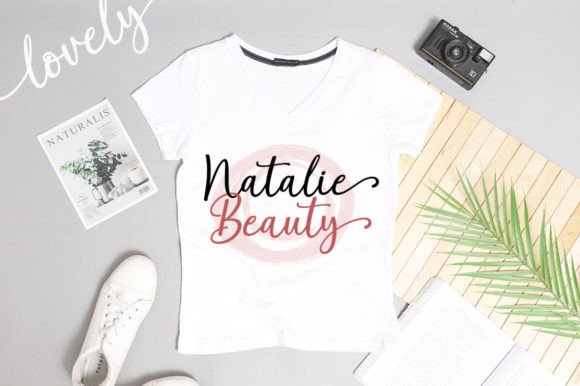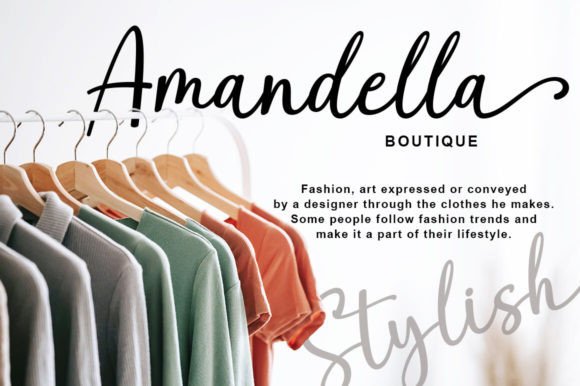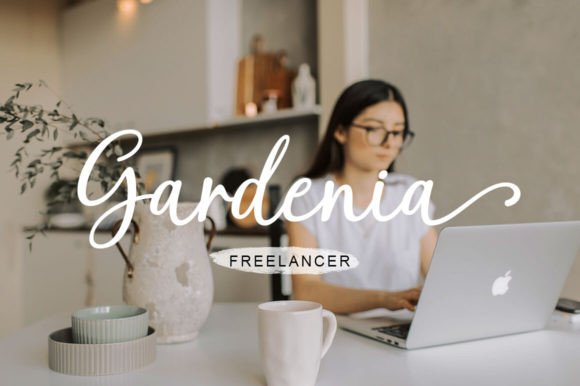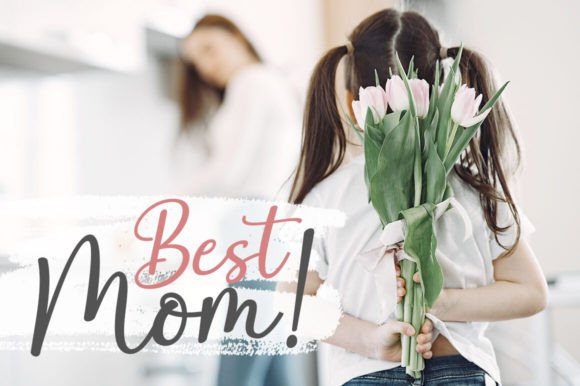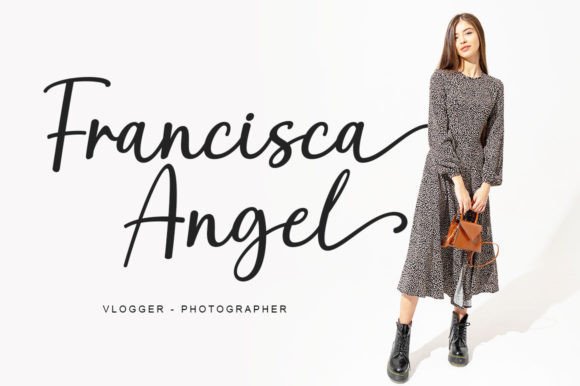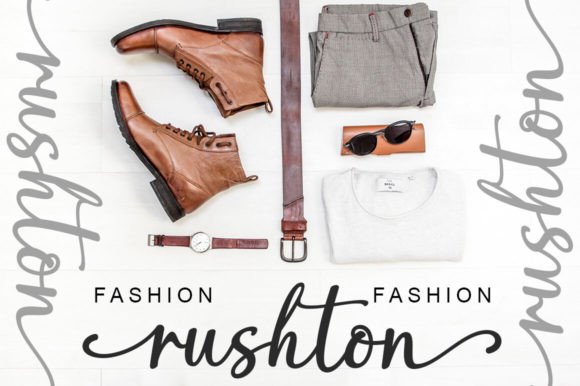
Introduction to Money Font
Have you ever been in the midst of a creative project, pouring your heart and soul into every detail, only to find the perfect design element is just out of reach? That’s exactly what happened to me when I stumbled upon the Money Font, a stunning modern script font that has since become my go-to design resource.
As a designer, I can attest to the value of having access to high-quality fonts like the Money Font, which boasts an irregular baseline and a trendy, feminine style. Whether I’m working on a wedding invitation, a thank you card, or a logo, this font’s versatility and beauty make it a must-have in my design arsenal.
With its PUA encoding and extensive support for initial and final letters, alternative scripts, and multiple languages, the Money Font is a valuable addition to any designer’s toolkit. And the best part? It’s perfect for use with transparent backgrounds, making it a dream to work with watercolors and ink.
Key Features of Money Font
- High-quality design: Money Font is designed to provide a premium look and feel for any creative project.
- Transparent background: The font’s transparent background allows for seamless integration with any design resource.
- Large character set: The font includes a large character set, covering a wide range of languages and characters.
- Resolution-independent: Money Font is designed to be resolution-independent, ensuring crisp and clear text at any resolution or size.
Honest Review: Money Font
I recently stumbled upon the Money Font, and I must say it’s been a game-changer for my creative projects. The high-quality design and transparent background make it perfect for any modern design resource.
- ✨ What works well: The font is highly customizable, with a wide range of styles and sizes to choose from. The transparent background allows for seamless integration with any design.
- ✨ The font is also incredibly easy to use, even for those without extensive design experience.
However, I did encounter a few limitations with the Money Font ⚠️:
- ⚠️ Limited font options: While the font is highly customizable, the number of options can be limiting for more complex design projects.
- ⚠️ Not suitable for all design styles: The modern design aesthetic may not be suitable for more traditional or vintage-inspired projects.
Overall, I’m impressed with the Money Font and would definitely recommend it for any creative project. The free download is a bonus, making it an excellent resource for designers on a budget. With a little creativity, the Money Font can elevate even the most basic design to a high-quality, professional-looking project.
Introduction to Money Font
Money Font is a high-quality design resource perfect for creative projects that require a touch of elegance and sophistication. With its transparent background and modern design, it’s an ideal choice for designers looking to add a premium feel to their work.
Tips for Getting the Most Out of Money Font
To get the most out of Money Font, use it in conjunction with other high-quality design resources. Experiment with different font sizes, colors, and arrangements to create unique and eye-catching designs.
Common Use Cases for Money Font
Money Font is commonly used in financial and business-related projects, such as logos, brochures, and marketing materials. It’s also a popular choice for creative projects like book covers, magazine layouts, and website designs.